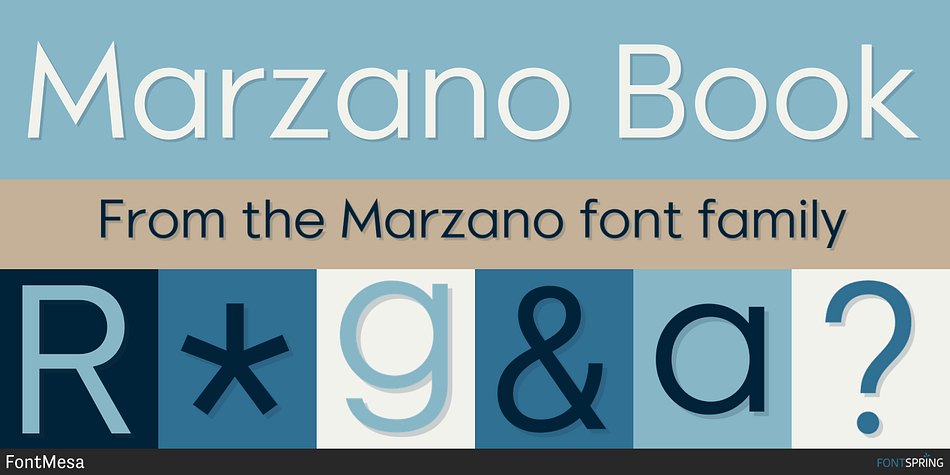
Marzano Book
Designed by Michael Hagemann, Marzano is a sans serif font family. This typeface has thirty styles and was published by FontMesa.
Marzano is a geometric sans serif font that’s ideal for headlines, logos, text and advertising, the name comes from the ever so sweet and wonderful San Marzano plum tomato grown in Italy.
Marzano includes stylistic alternates, swash caps, case sensitive forms, old style figures and tabular figures.
Since a lot of people today like to type in code using the copyright and trademark symbols in place of a C or R we’ve decided, the first time to offer two registered trademark symbols, one that’s the same size as the copyright symbol and an alternate version that’s reduced in size and sits at the caps height.
Marzano Slant is set at 6 degrees and is perfect for when you want the look of an italic but don’t have the horizontal space in your page design for a full 12 degree italic.